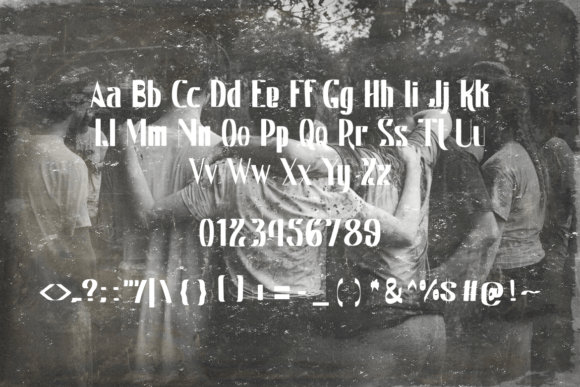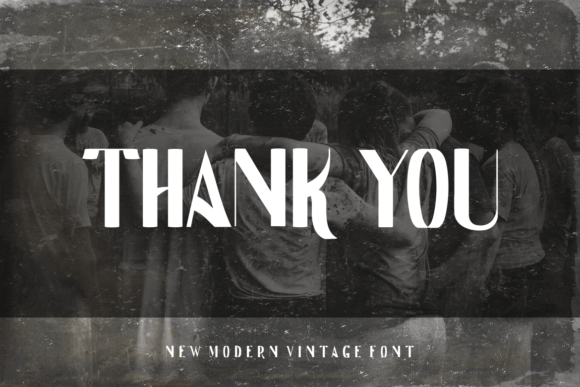
Introduction to Qauropi Font
Do you ever find yourself stuck in a creative rut, searching for that perfect design element to elevate your project? I know I do! One day, while working on a new design project, I stumbled upon the Qauropi Font. Its unique style and quirky charm immediately caught my attention, and I knew I had to share it with the world.
As a designer, I can attest to the value of having a high-quality design resource like the Qauropi Font in your arsenal. With its transparent background and free download availability, it’s the perfect addition to any creative project. Whether you’re a seasoned pro or just starting out, this font is sure to bring a fresh touch to your designs.
In this article, we’ll dive into the world of Qauropi Font and explore its many uses and benefits. From its unique style to its versatility, we’ll cover everything you need to know to make the most of this amazing design resource.
Key Features of Qauropi Font
- High-quality, unique design suitable for creative projects, including graphics, logos, and branding materials.
- Features a transparent background, allowing for easy customization and versatility in design projects.
- Designed with a high resolution, ensuring crisp and clear text display, ideal for print and digital applications.
- Supports a wide range of languages, making it a great choice for multilingual creative projects.
- Perfect for designers and artists working on innovative and artistic projects, adding a touch of uniqueness to their work.
Honest Review: Qauropi Font
I recently came across the Qauropi Font, and I was excited to give it a try in my next creative project. As a designer, I’m always on the lookout for high-quality design resources to elevate my work.
What works well about the Qauropi Font is its unique and quirky style. The font is perfect for adding a touch of personality to your design, whether it’s for a logo, branding, or even a social media post. The transparent background option is also a great feature, allowing you to easily integrate the font with other design elements.
Here are some key features that stood out to me:
- High-quality design that’s perfect for creative projects.
- Transparent background option for seamless integration.
⚠️ One limitation I noticed is that the font may not be suitable for body text due to its unconventional style. However, for titles, headings, or decorative elements, it’s a great choice.
Overall, I’m impressed with the Qauropi Font and would definitely recommend it to fellow designers looking for a unique design resource. With its free download and high-quality design, it’s an excellent addition to any design library.
How to Use Qauropi Font
To get the most out of Qauropi Font, use it on a transparent background to create visually appealing designs. Experiment with different font sizes and styles to add depth and creativity to your project.
The Qauropi Font is ideal for various design projects, including:
- Logo creation
When to use: Designing wedding invitations, branding materials, or any project that demands a refined, high-end aesthetic.
Comparison to Qauropi Font: While Aurora Script has a more refined and elegant feel, Qauropi Font has a more playful and modern touch. Aurora Script is ideal for projects that require a sense of luxury and sophistication.
Montserrat is a sleek, modern font that is perfect for designers working on creative projects that require a clean and minimalist aesthetic. It’s a high-quality font that can be easily downloaded for free.